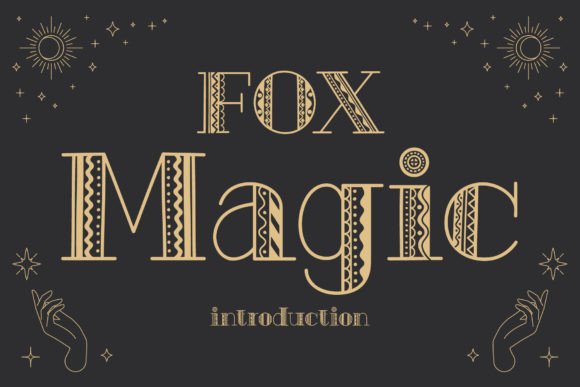
Introducing Fox Magic Font: The Playful and Enchanting Decorative Font for Designers
Journey into a whimsical world of creativity with Fox Magic Font, a stunning display font that captivates with its playful energy and extraordinary visual charm. Designed to ignite your imagination and add a touch of enchantment to your creative projects, Fox Magic is a versatile font that brings any design to life.
Whether you're designing logos, branding, social media graphics, or invitations, Fox Magic transforms ordinary text into magical, eye-catching masterpieces. Its unique aesthetic adds a touch of whimsy and personality to your designs, making them stand out from the crowd.
Unleash Your Creativity with Endless Possibilities
With Fox Magic's versatility, the possibilities are infinite. Dive into a world of captivating blog posts, logos, branding, ads, invitations, and greeting cards, each infused with the unique charm of Fox Magic. Create planners and photo albums that transport you to a realm of imagination, or design decorations that bring a touch of magic to your home.
The beauty of Fox Magic lies in its ability to elevate the ordinary into the extraordinary. Its playful curves and enchanting details capture attention, leaving a lasting impression on your audience. Whether you're a seasoned designer or just starting out, Fox Magic is your gateway to creating designs that resonate with your audience and leave them spellbound.